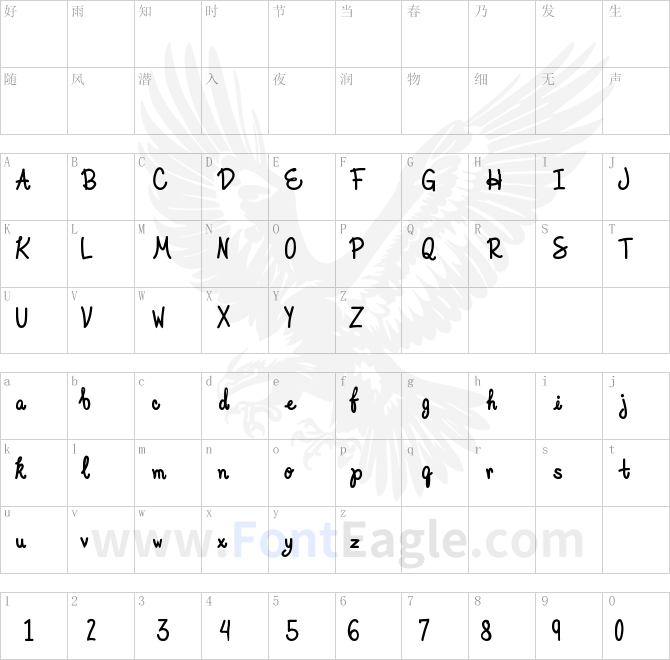
Elegant-Ink is a great font, widely used in graphic design, single-page menu design, poster design and other fields, and is deeply loved by designers.Elegant-Ink download.